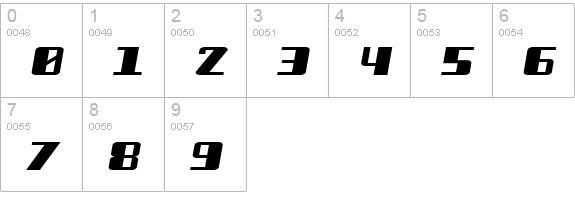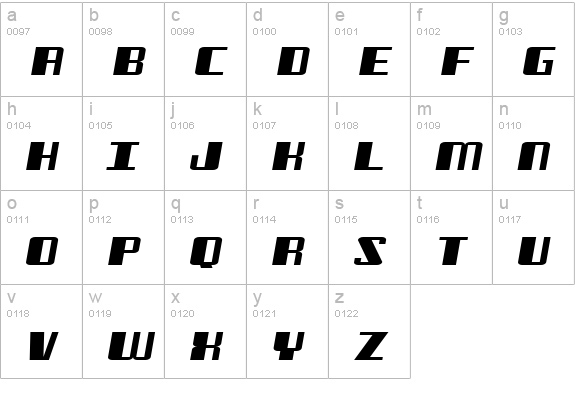
Freezer BTN Wide Oblique is a distinctive, extended-width, italic variant in the Freezer typeface family \xE2\x80\x94 well suited to design and typography projects.
The Freezer BTN Wide Oblique font exudes a sense of cool sophistication with its sleek, slanted design. Its sharp angles and wide letterforms make a bold statement while maintaining a sense of elegance. This modern typeface is perfect for adding a touch of contemporary flair to your projects. What sets this font apart is not just its striking appearance, but also the fact that it is available for free download at FontsMarket.com. Yes, you read that right - this high-quality font can be yours at no cost, allowing you to elevate your designs without breaking the bank. Don't miss out on the opportunity to enhance your creations with the Freezer BTN Wide Oblique font - get your hands on it today!